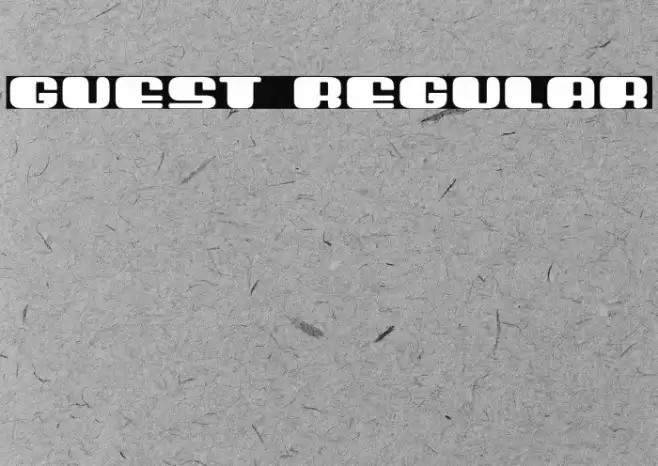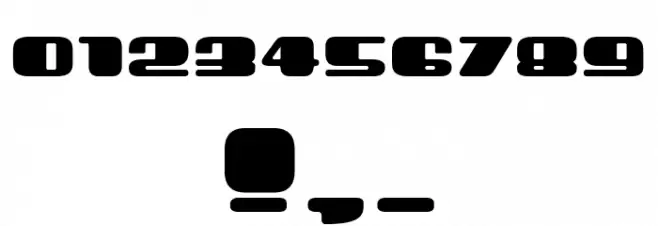
Guest Regular Font
Guest Regular Description
This font features a bold and futuristic design with rounded edges and a strong geometric presence. The characters are wide and have a unique blocky appearance, making them stand out prominently. The uppercase letters are uniform in height, while the lowercase letters maintain a consistent style, contributing to a cohesive look. The numbers are equally bold and share the same rounded characteristics. Special characters are designed to match the overall aesthetic, ensuring a seamless integration with the rest of the font. This style is ideal for projects that require a modern and impactful visual statement.
A bold, futuristic font with rounded edges and a geometric design from Uncategorized fonts.
- Proposed Projects: Ideal for branding, posters, digital media, and futuristic-themed projects.
- Width: Expanded